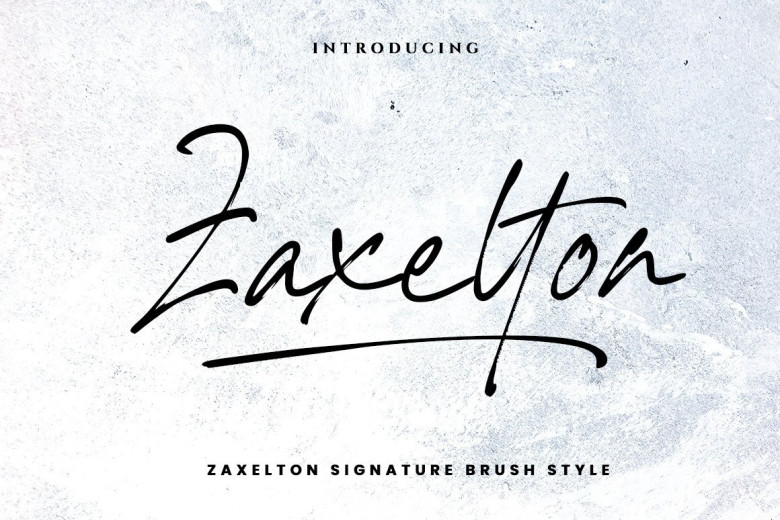
Zaxelton Font
Zaxelton features a signature brush stroke to give its modern style while still being warm in feel. Perfect for any DIY project and encoded with PUA for easy accessing all its wonderful glyphs and laches!
Zaxelton Brush Signature Font